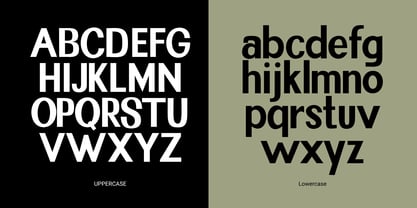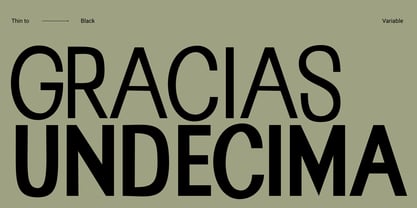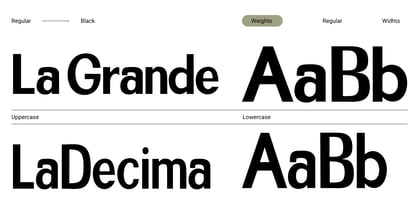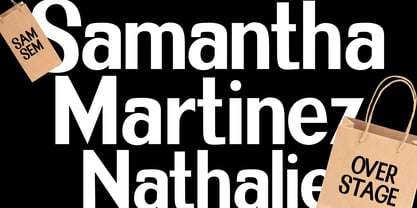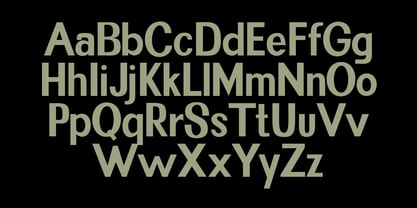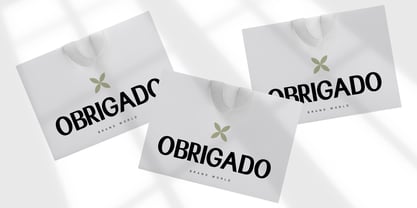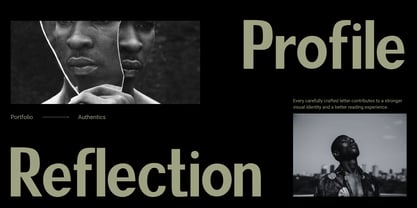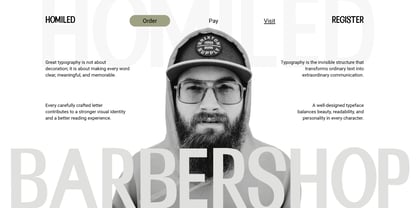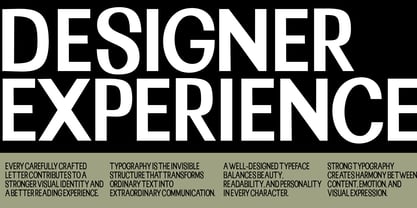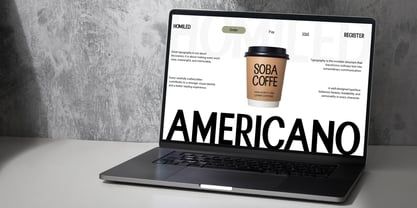
Homiled
The Homiled Font Family was designed by Teuku Zulfikar and published by Josstype. Homiled contains 270 styles and family package options. More about this family
Homiled is an elegant, modern, and contrasting sans serif font family. It comes in 270 styles, including both upright and italic styles, each with seven weights ranging from thin to bold. It's a versatile font perfect for any project, contrasting, modern, and easy to read. With this font, you can create logos, use it in advertisements, packaging, book and magazine covers, titles, descriptions, and more.
and equipped with simple pro.